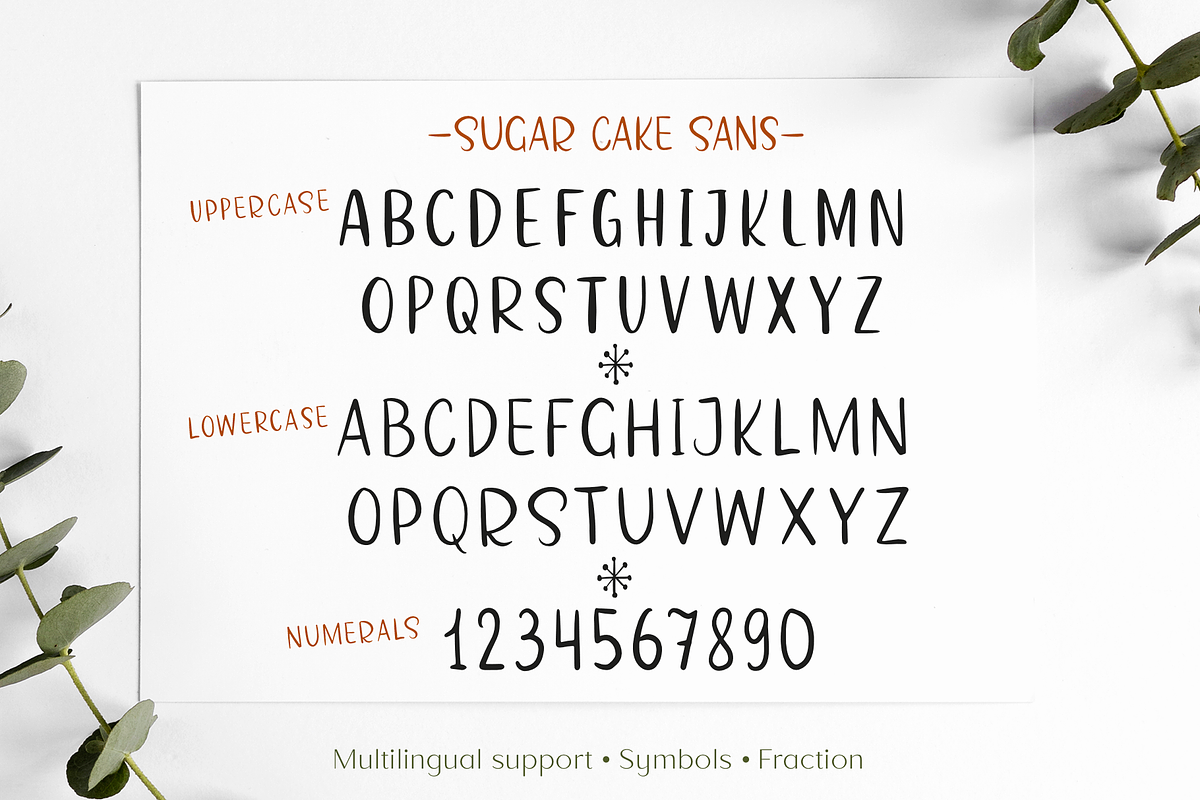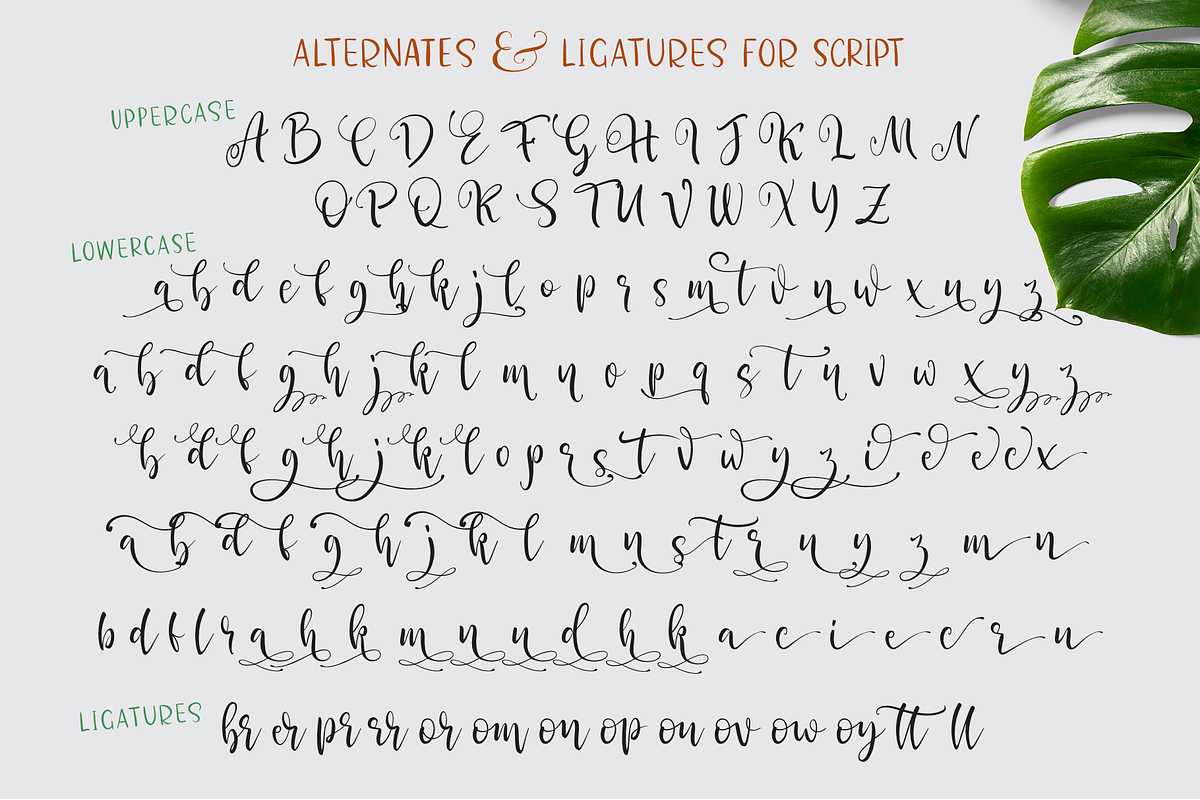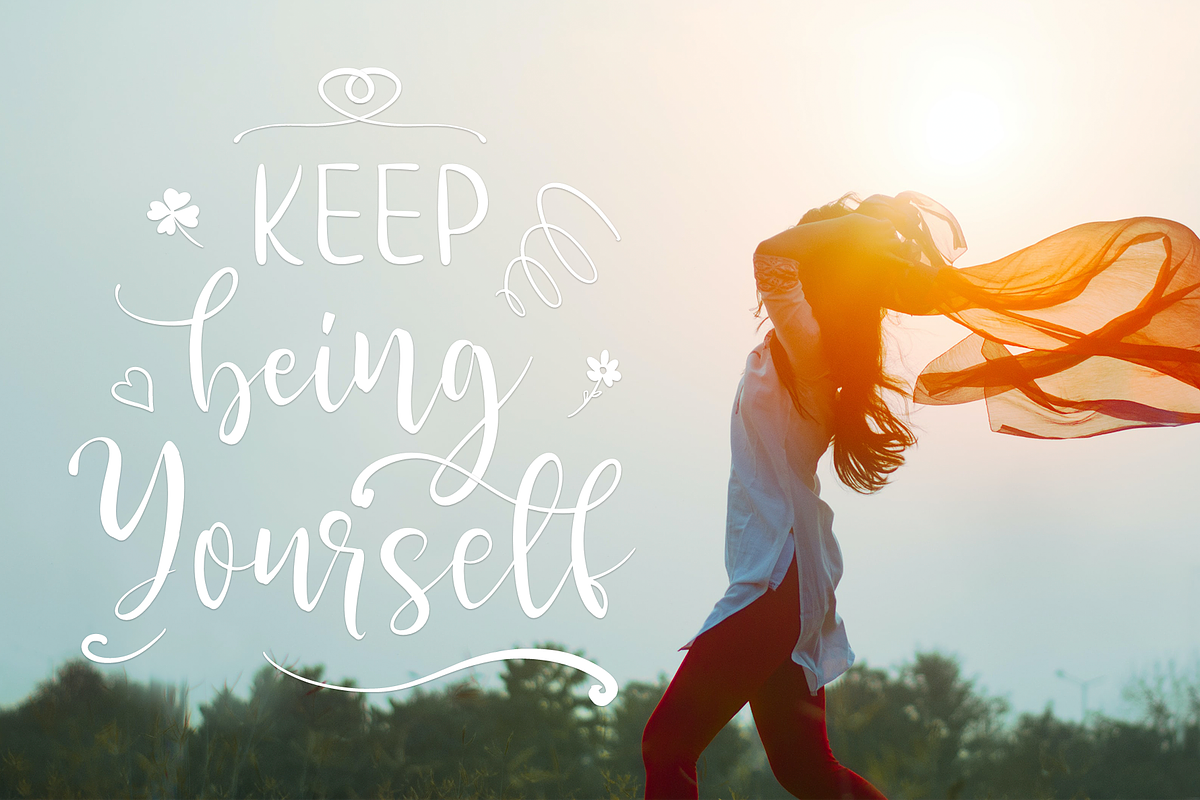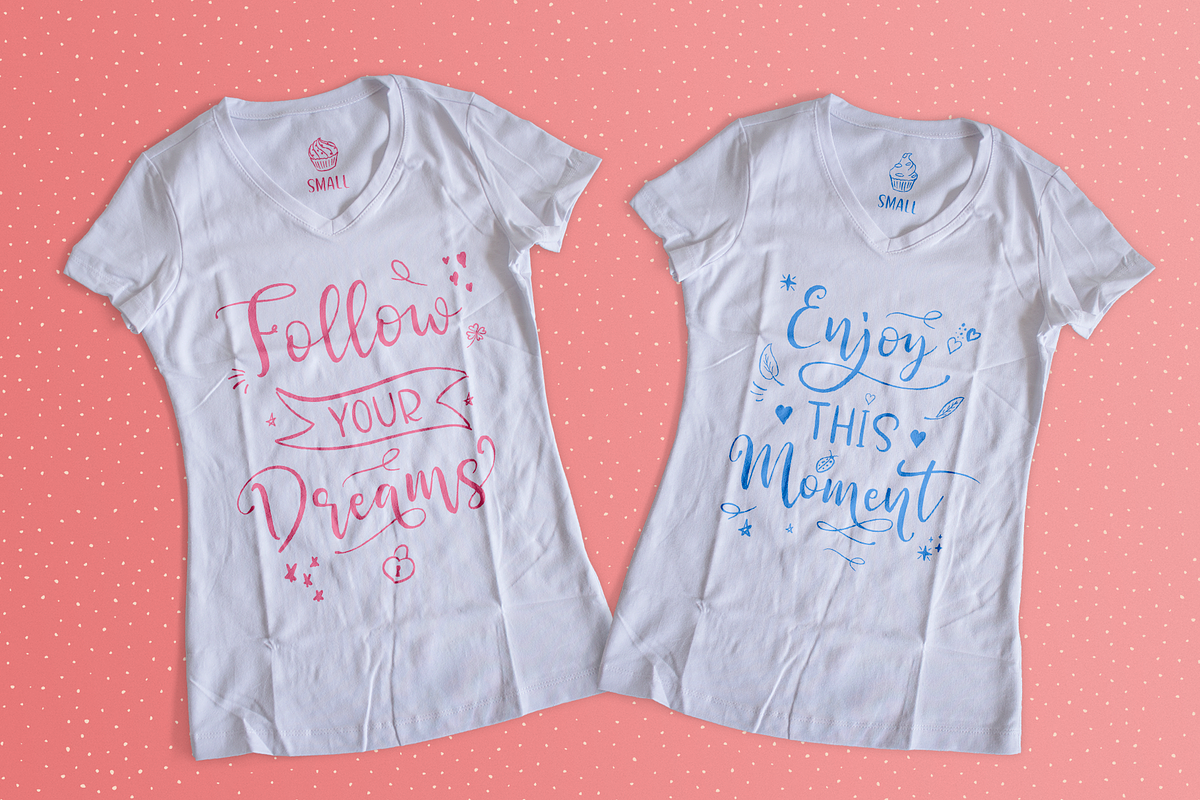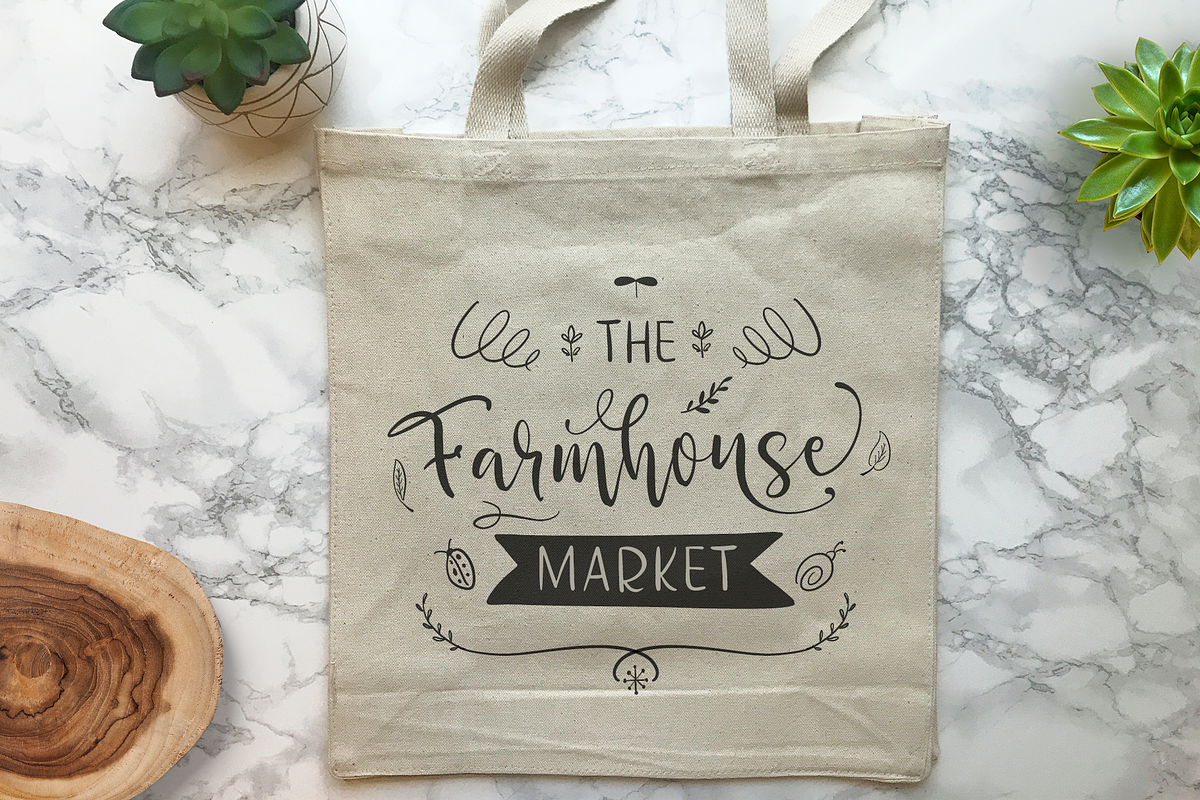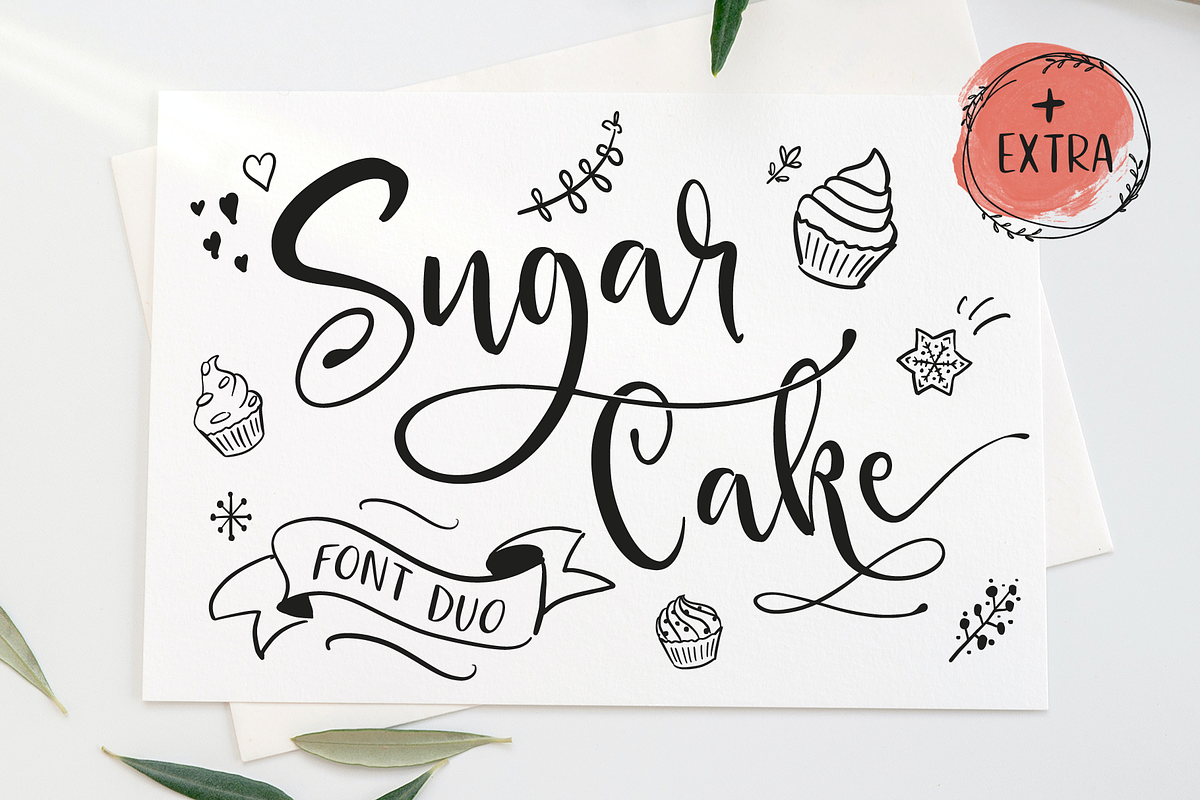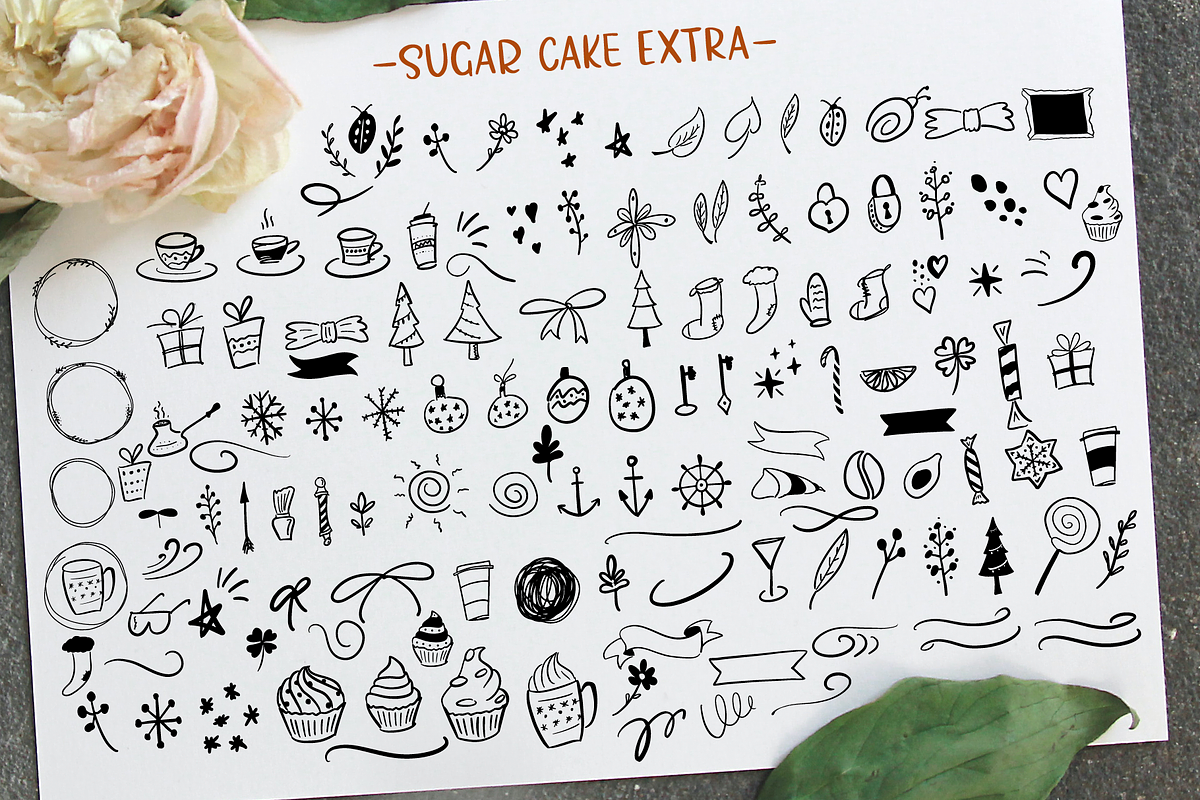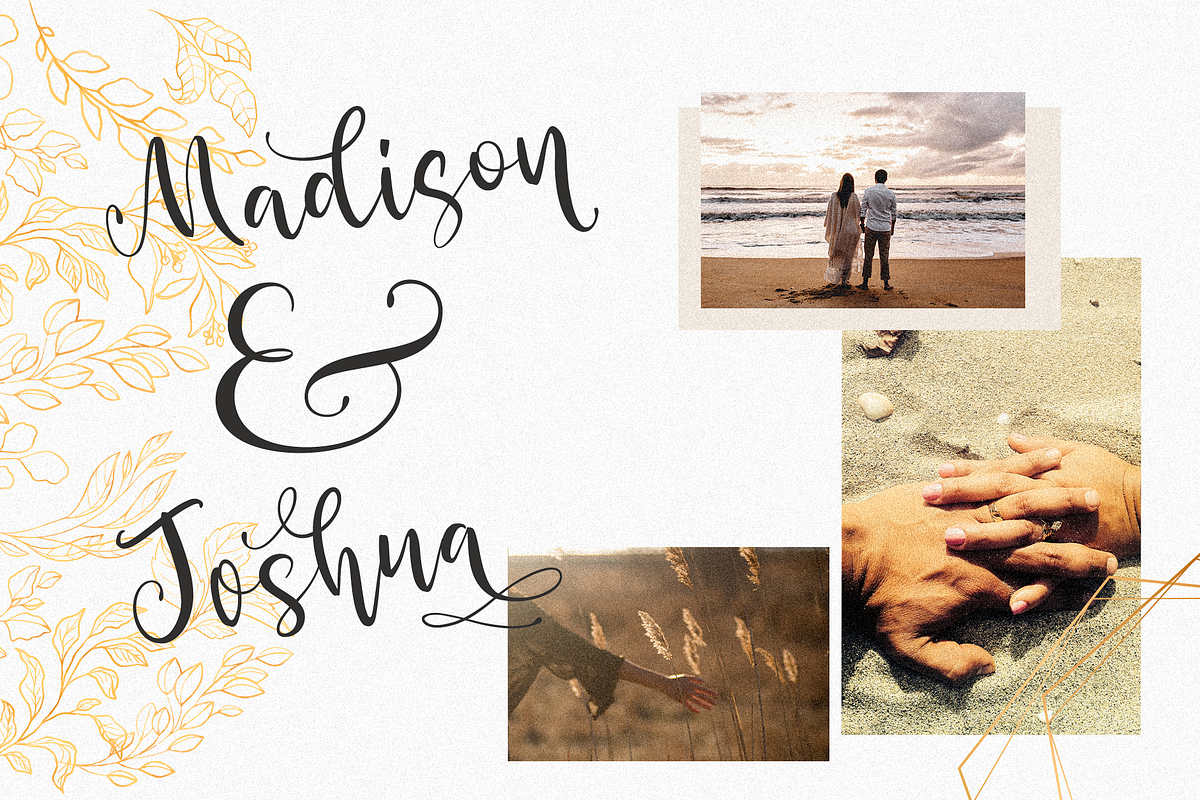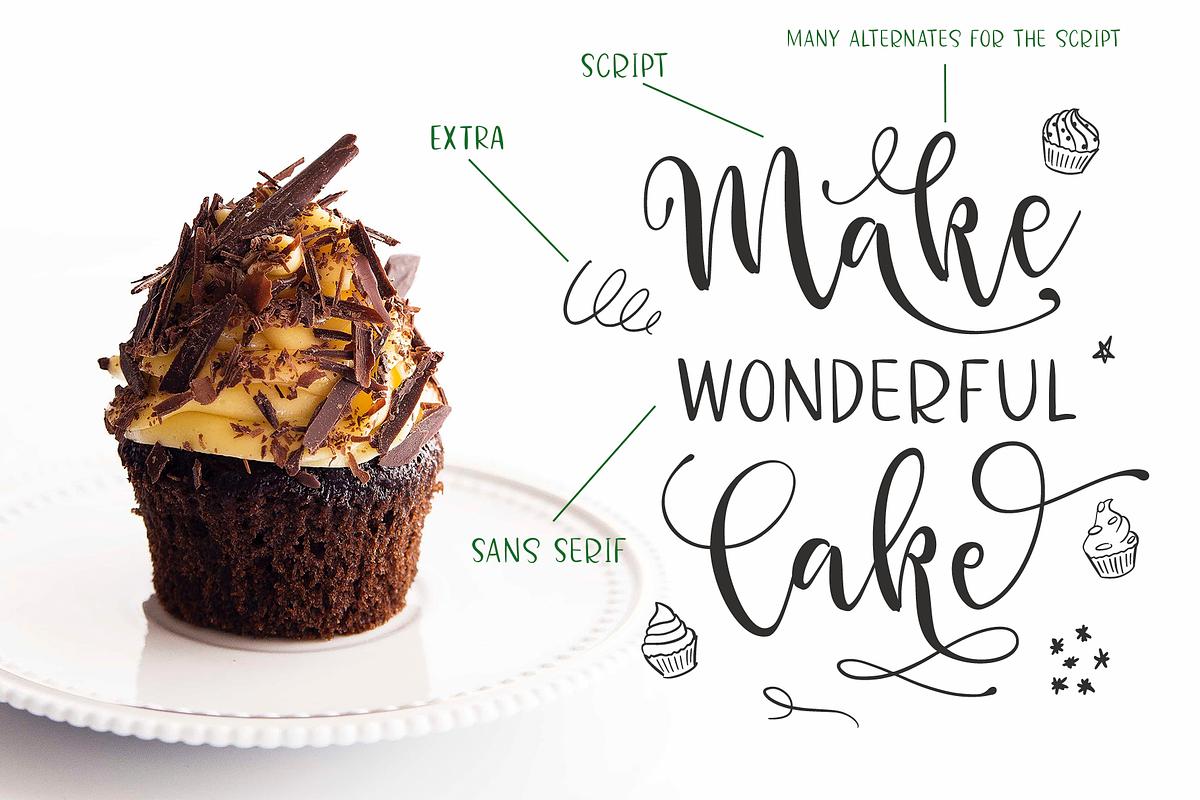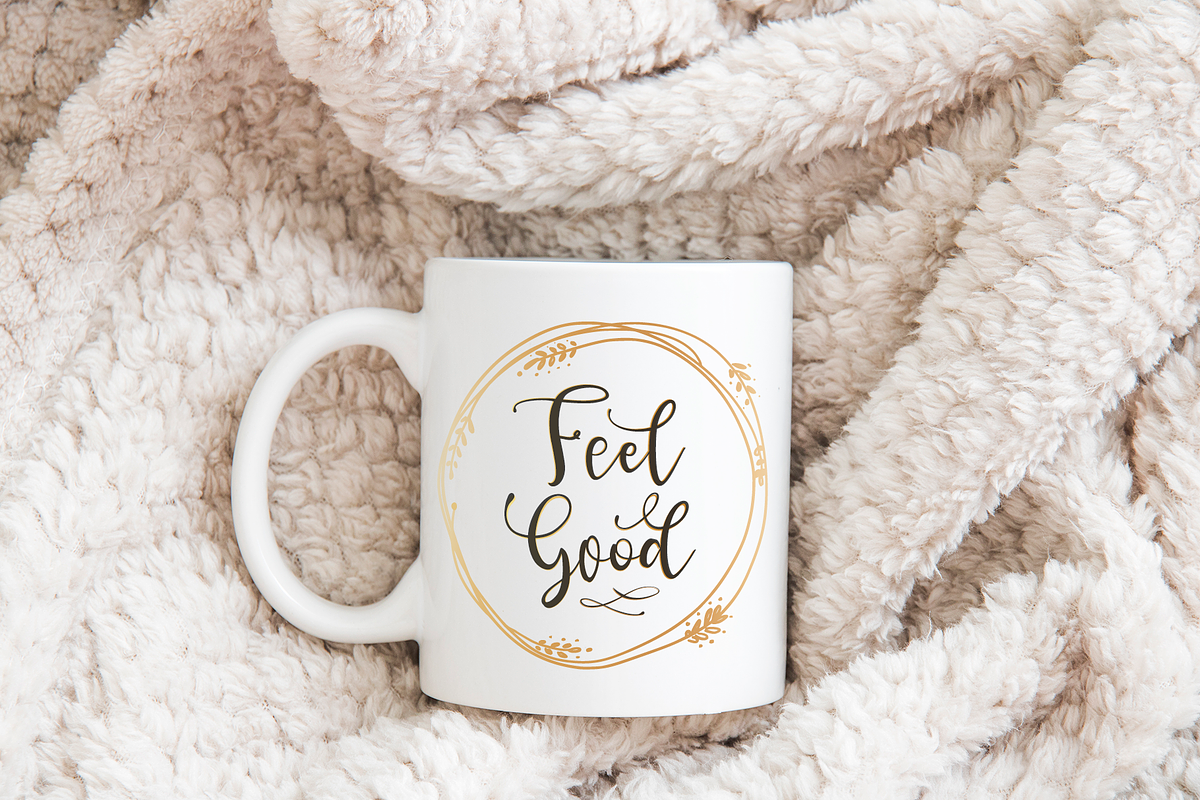
Sugar Cake
Sugar Cake this is a stunning handwritten font duo with hand-drawn illustrations.
Script font includes many alternates, ligatures and swash with them you can create a more complete composition and make it more diverse and individual. A hand-drawn sans serif font will perfectly match the script and complement it. Also included in this font are hand drawn fancy illustrations that will be useful for design and decorate your project.
Script and Sans Serif following international symbols support: ÀÁÂÃÄÅĄÇĆÈÉÊËĘÌÍÎÏÐÑŃŁÒÓÔÕÖØÙÚÛÜŚŠŸÝŹŻŽßàáâãäåçèéêëìíîïðñòóôõöøùúûüýÿąćęłńśšźżž
Full alphabet with Uppercase and Lowercase A-z for script and sans.
Numbers, fractions for script and sans.
Punctuation and symbols for script and sans.
Alternates Uppercase and Lowercase for script font, also ampersand's
Ligatures and swash for script
Multilingual support all fonts
Hand drawn illustrations